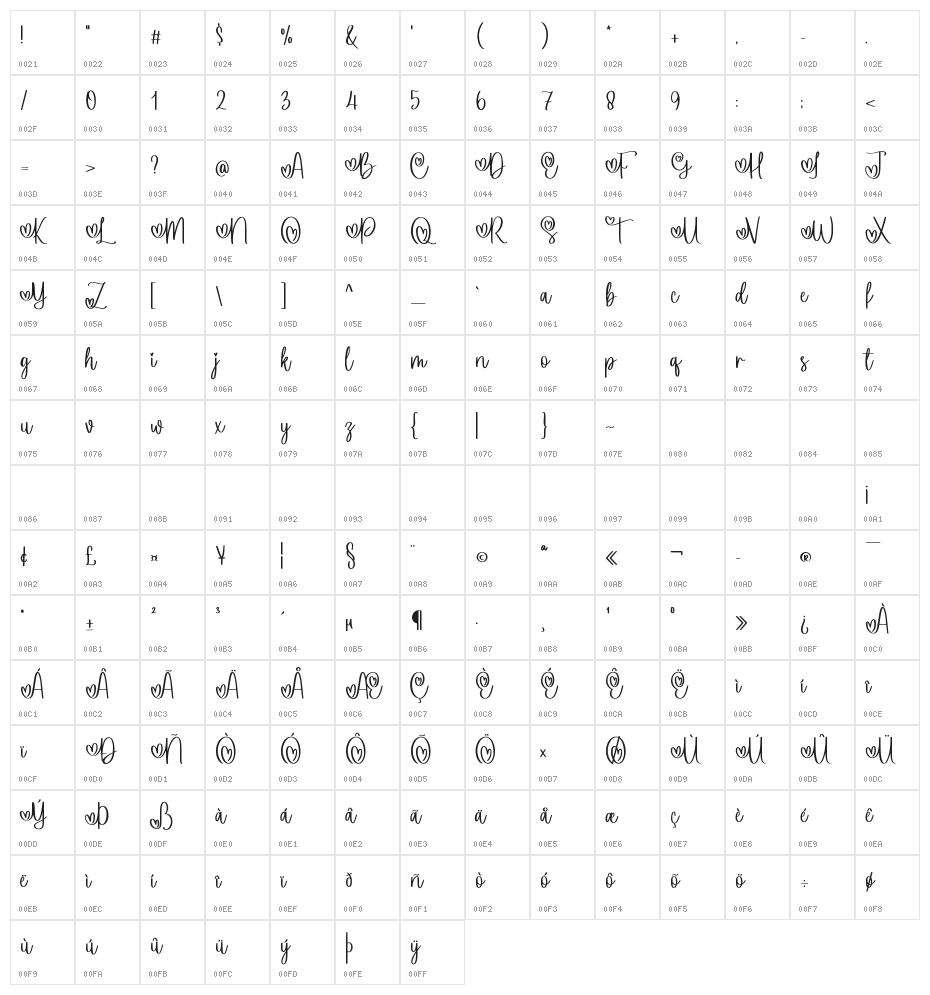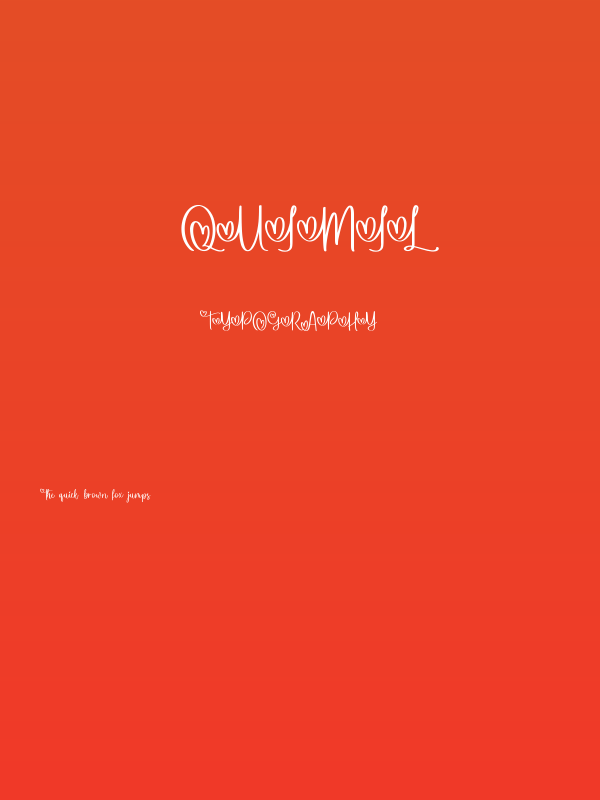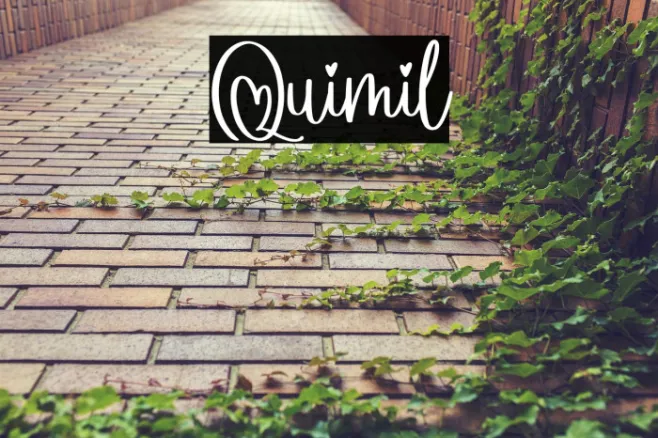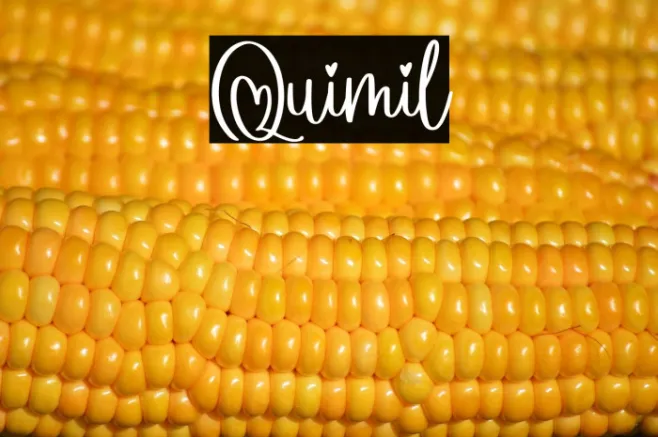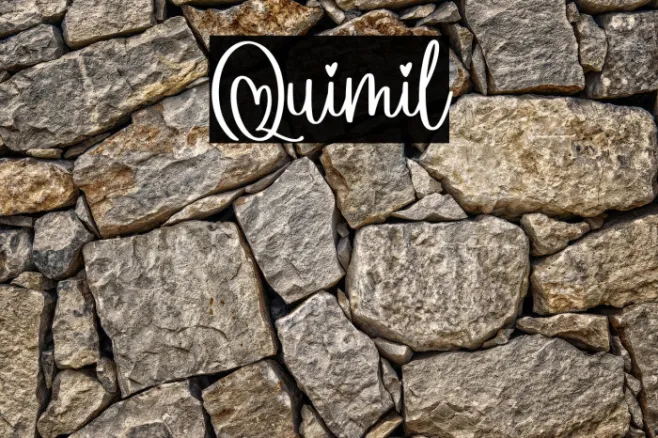
Quimil Font
Quimil Description
This font features a playful and whimsical design, characterized by its heart-shaped embellishments integrated into the uppercase letters. The lowercase letters maintain a flowing, cursive style that complements the decorative uppercase. The numerals and special characters are consistent with the overall playful theme, making it suitable for creative and lighthearted projects. The font's unique style is ideal for adding a touch of charm and personality to any design.
| Proposed Projects | Ideal for greeting cards, wedding invitations, playful branding, and children's book covers. |